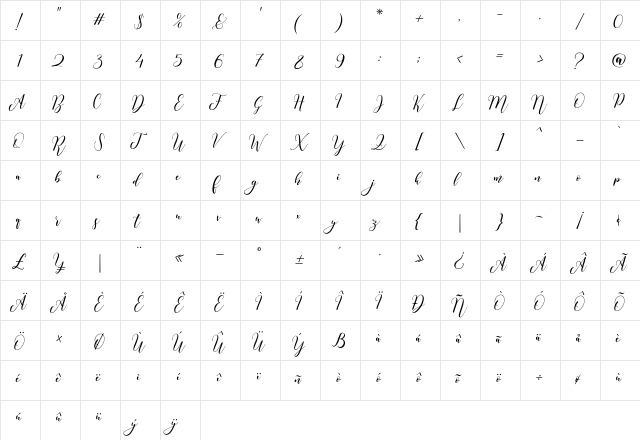
Heathens Script Regular
| Foundry | Fargun Studio |
| Designer | Fargun Studio |
Heathens Script flows with the natural rhythm of handwritten lettering, making it ideal for designs that call for warmth and personal expression.
Font Pairing: Combine Heathens Script with a simple geometric sans for maximum contrast — the tension between flowing curves and clean structure is a classic typographic pairing.
Pro Tip: Pair Heathens Script with a clean sans-serif for supporting text. The contrast between fluid script and geometric structure creates an elegant typographic hierarchy.